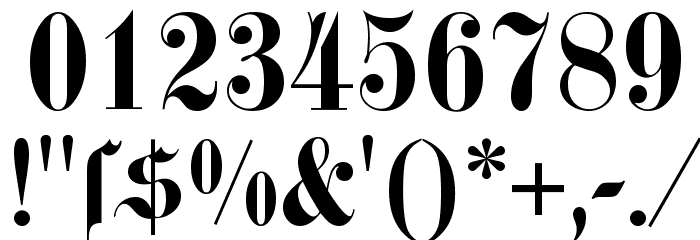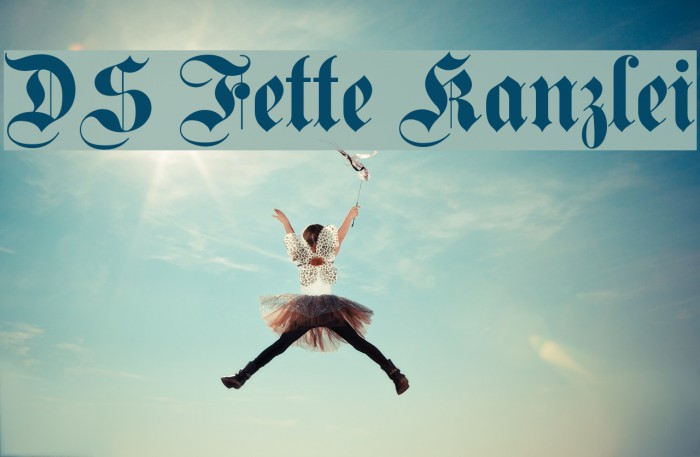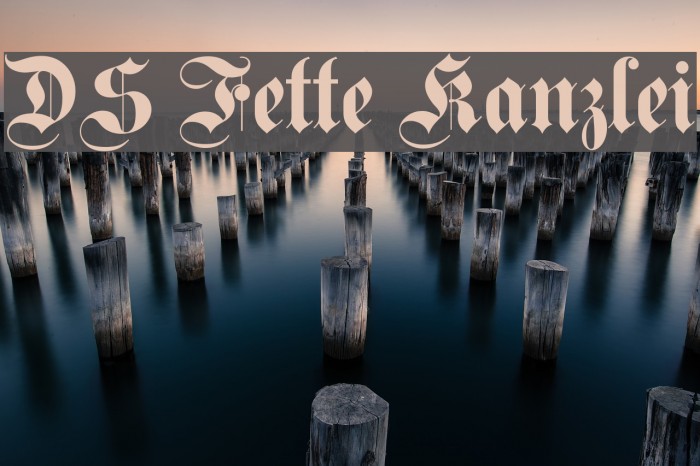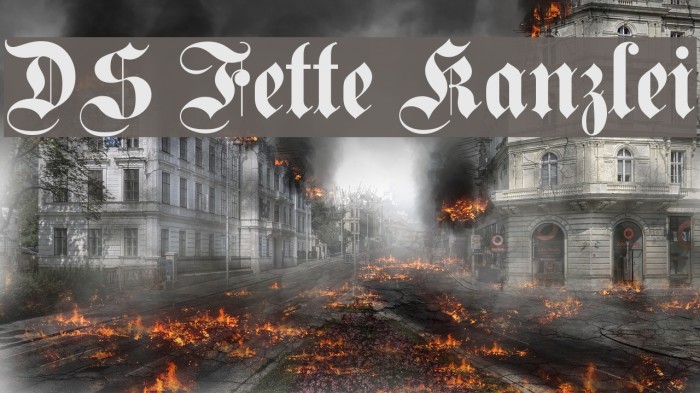
DS Fette Kanzlei Font
This font exhibits a traditional blackletter style, characterized by its intricate and ornate design. The uppercase letters are highly decorative, featuring sharp angles and elaborate flourishes that give it a historic and formal appearance. The lowercase letters maintain the same level of detail, with bold strokes and pointed serifs that enhance its gothic aesthetic. The numerals are consistent with the overall style, presenting a bold and authoritative look. Special characters are equally ornate, integrating seamlessly with the rest of the typeface. This font's dramatic and striking presence makes it ideal for projects that require a touch of elegance and historical depth.
A bold, decorative blackletter font with intricate details and a historic flair.
• Proposed Projects: Ideal for certificates, invitations, historical documents, branding for luxury products, and any design requiring a classic and formal touch.
• Category: Blackletter
• Bold: Yes
• Italic: No
• Weight: Bold
• Width: Normal
• Character Spacing: Normal
• Contrast: High
• Overall Style: Classic
• Use Case: Headlines, Logos, Decorative purposes